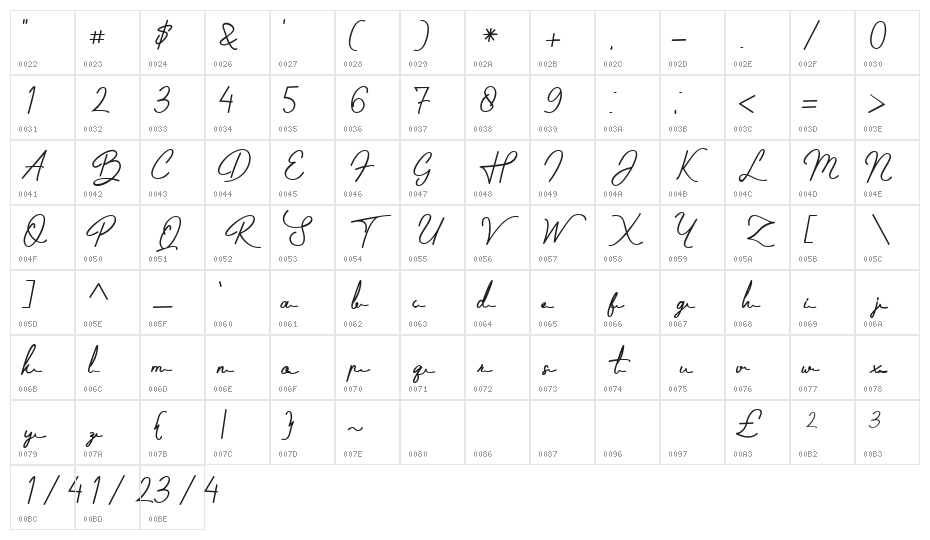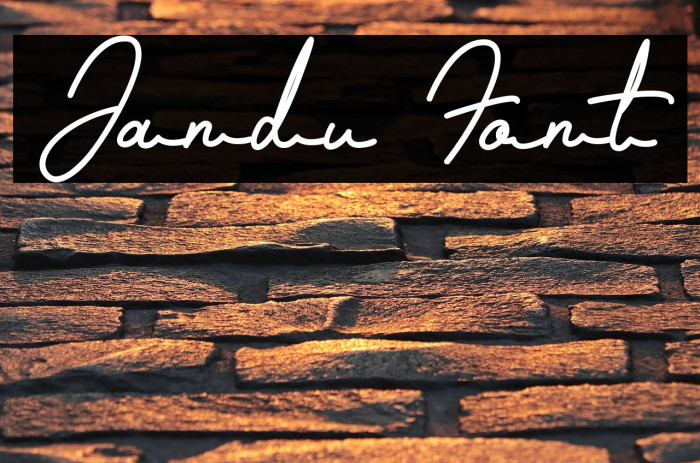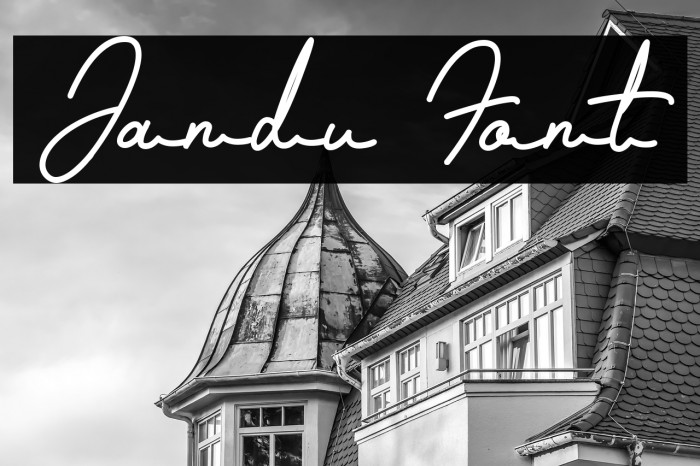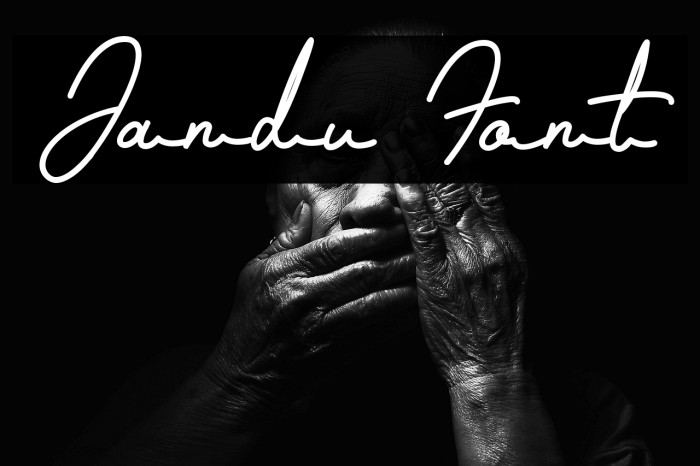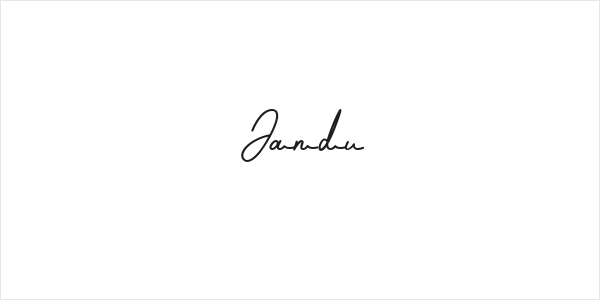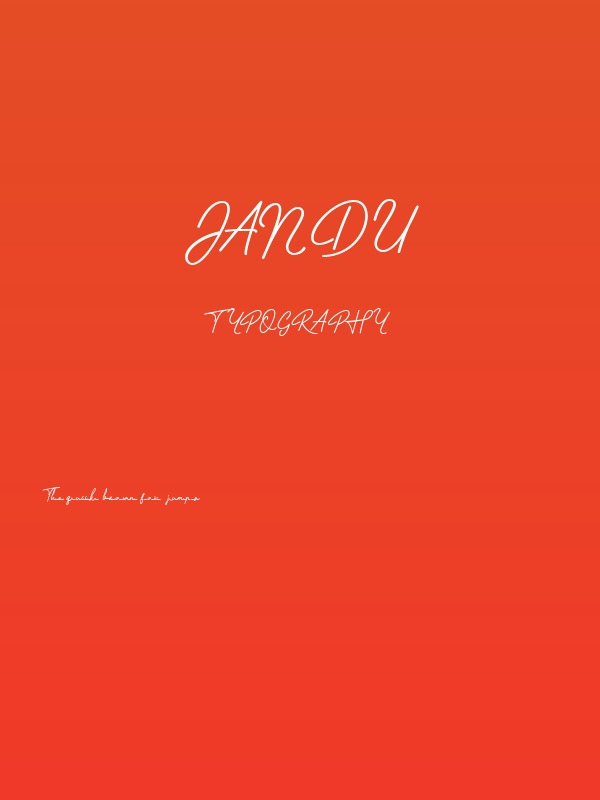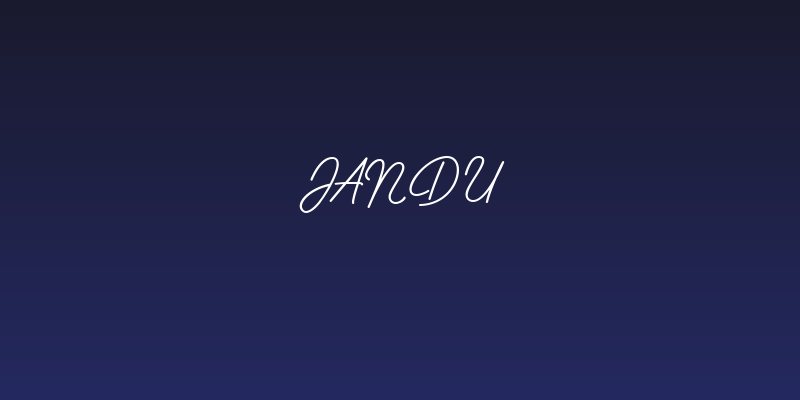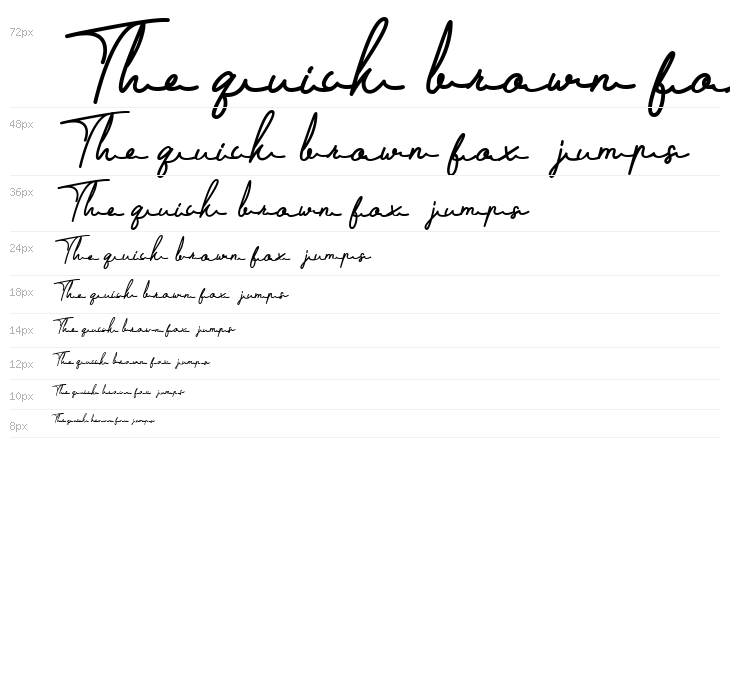
Jandu Font
Jandu Description
This elegant script font exudes a sense of fluidity and grace, characterized by its smooth, flowing lines and cursive style. The uppercase letters are slightly more ornate, with gentle curves and loops that add a touch of sophistication. The lowercase letters maintain a consistent flow, making it ideal for creating a seamless, handwritten appearance. The numerals and special characters are designed to complement the overall aesthetic, ensuring a cohesive look across all text elements. This font is perfect for projects that require a personal, yet polished touch.
| Proposed Projects | Ideal for wedding invitations, greeting cards, personal branding, and elegant packaging designs. |